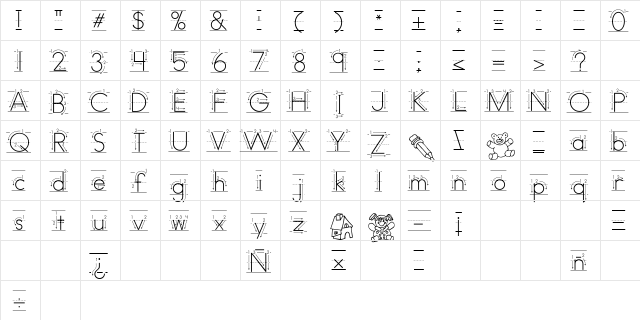
AbcPrintArrow Regular
Design Context for AbcPrintArrow Typeface
AbcPrintArrow is a composed and adaptable typeface that performs quietly and consistently across a wide range of design contexts.